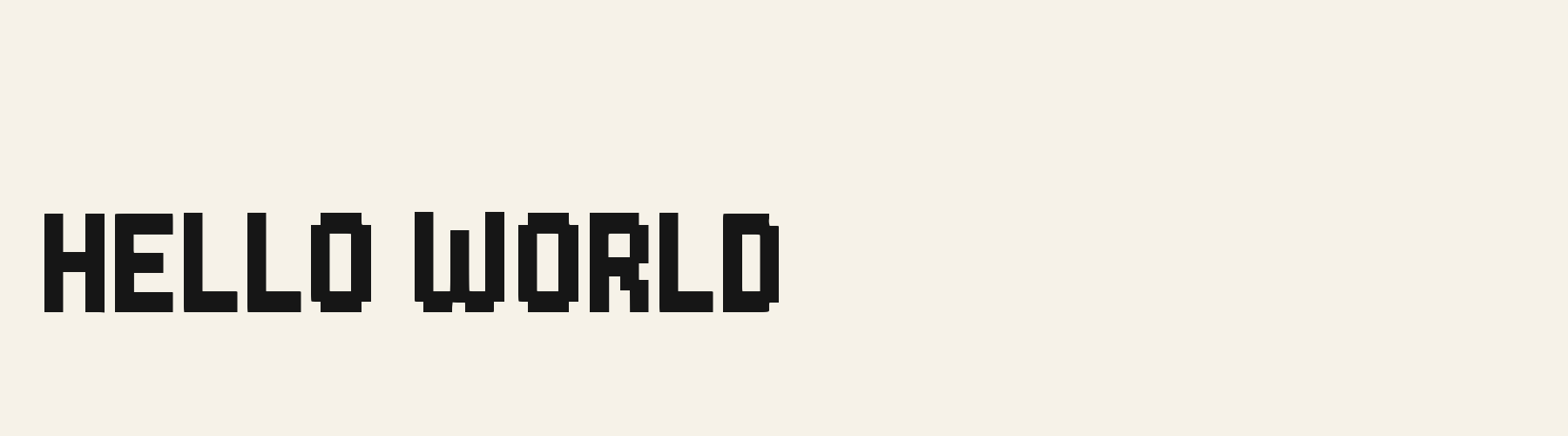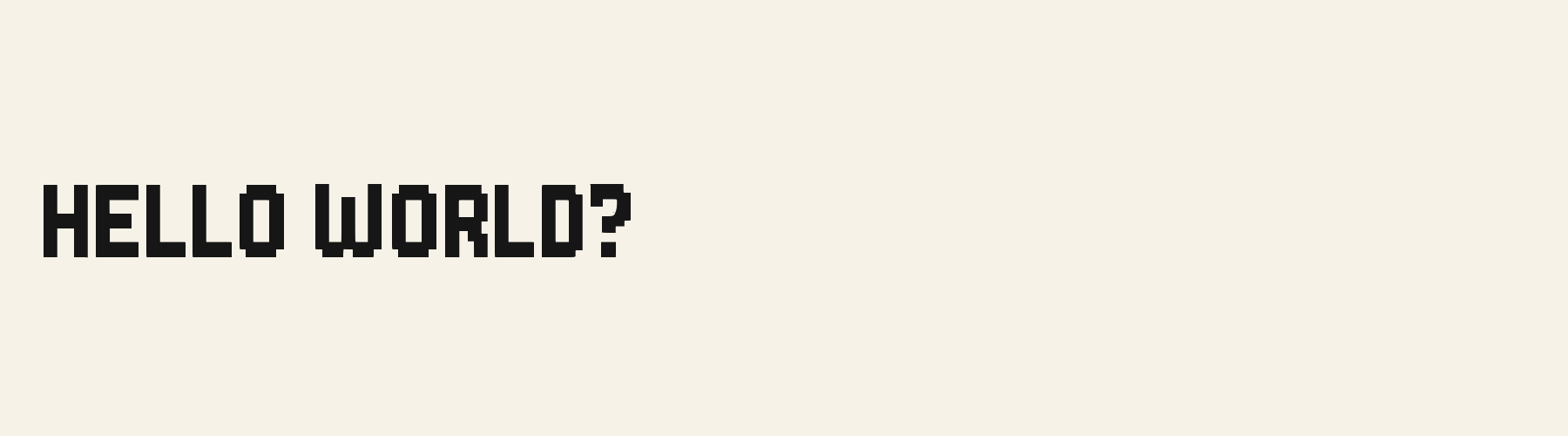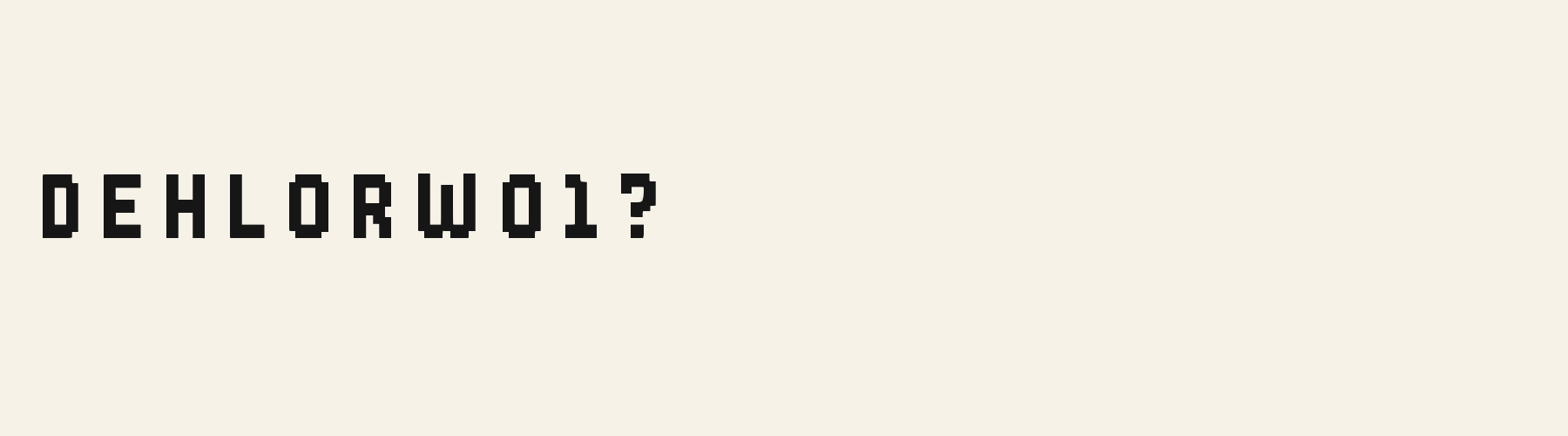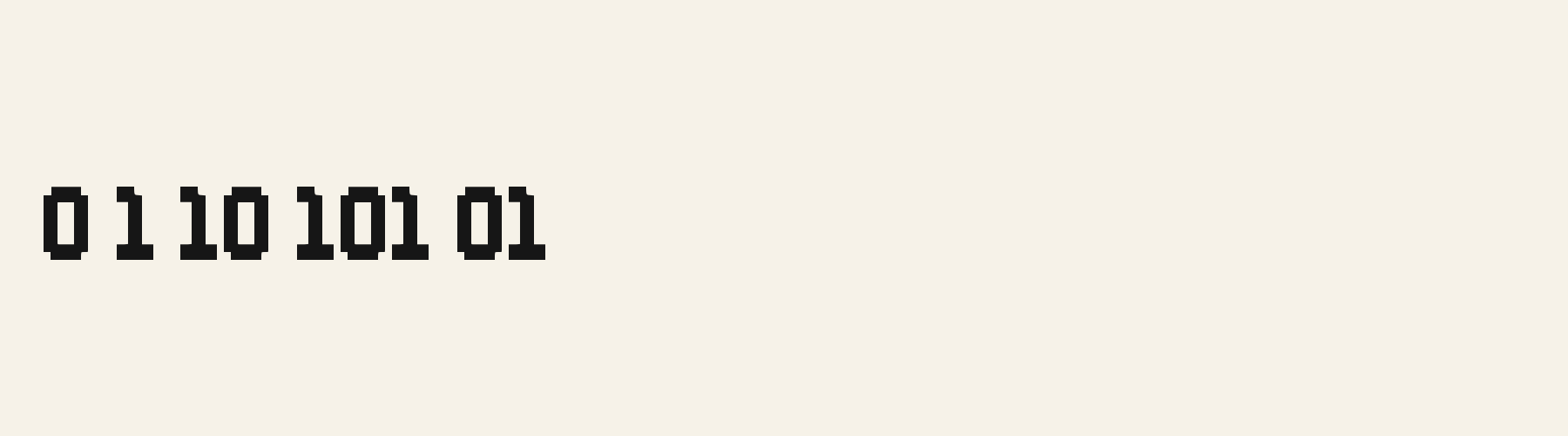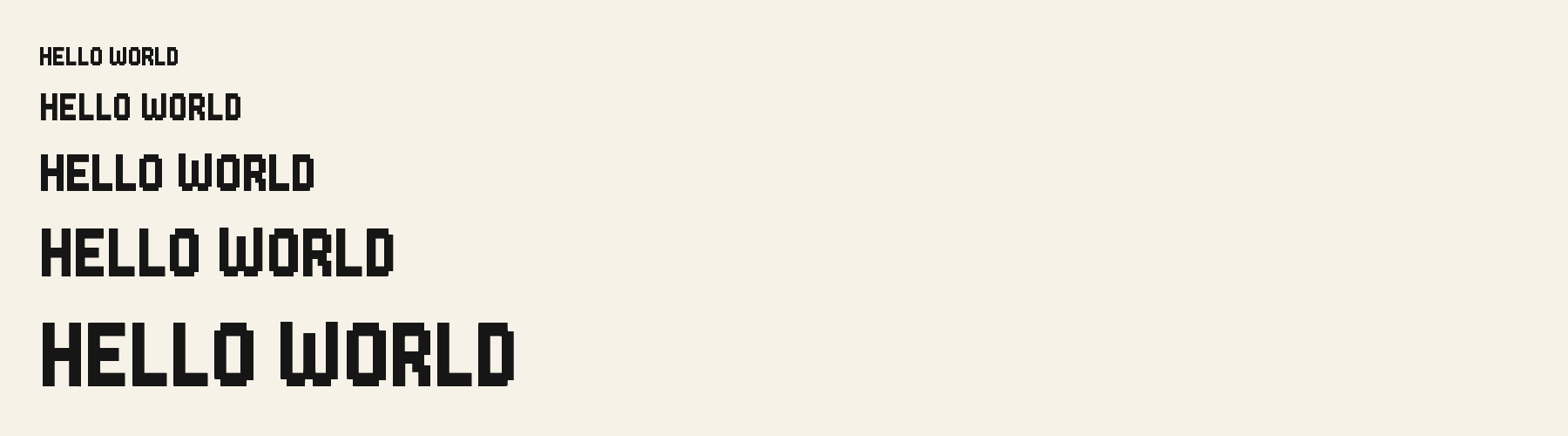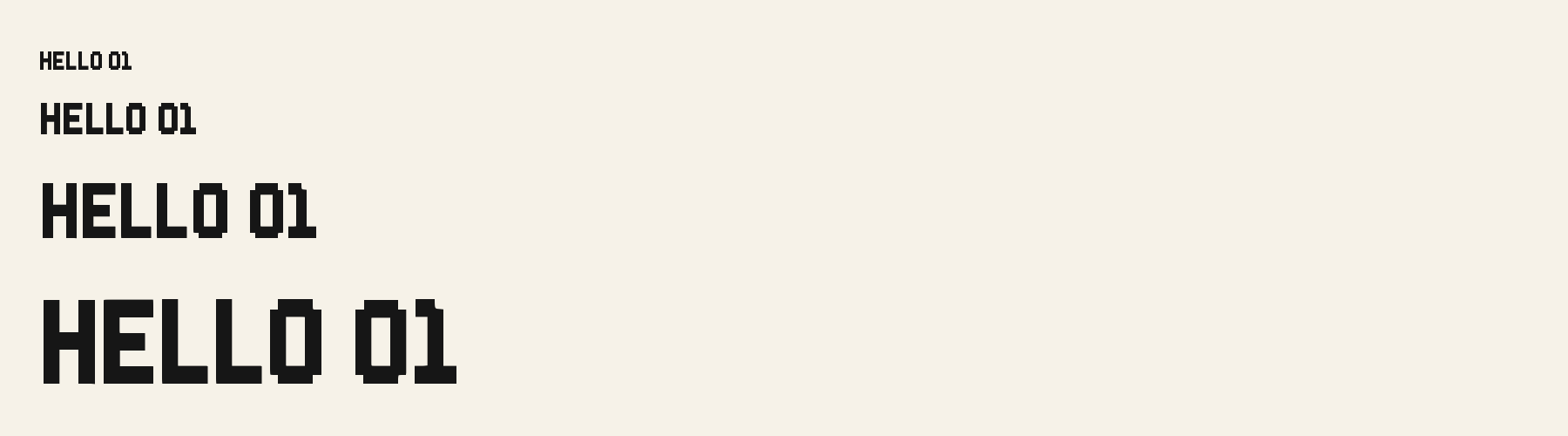
Magma Cipher Grotesk Dense Narrow Arcade Font
Magma Cipher Grotesk packs heavy, upright letters into a compact line, with solid strokes and small square steps replacing curved corners.
Dense Narrow Arcade Letterforms
Magma Cipher Grotesk packs heavy, upright letters into a compact line, with solid strokes and small square steps replacing curved corners. The O encloses a tall rectangular counter inside a bowl with stepped shoulders and feet. The W spreads wider than its neighbors, with a shorter central upright and deep openings between its stems. The R carries a compact upper bowl into a blunt, stepped leg, keeping even its directional movement angular. Nearly even stroke thickness gives the lettering a dense, sturdy rhythm, while the narrow interiors and abrupt joins bring an arcade title mood to short phrases.
Inspect repeated uprights, the wide W, and the narrow O counters in your actual wording at smaller and larger previews. For Latin text, check lowercase descenders and accented letters separately; preview any other script in the intended fallback before approving the layout.
Try this face for the main heading, with a lighter, open sans serif for descriptions and supporting labels. Its solid stems and tight rectangular counters create a strong contrast with quieter text that has more internal space.
Magma Cipher Grotesk: letterforms and layout
Compare the original spacing with a slightly wider setting. The heavy stems and narrow counters create a dense line; added space separates the repeated uprights while preserving the stepped outlines.
Magma Cipher Grotesk uses solid, heavy strokes with stepped outer corners and narrow counters. Its broad W and compact neighboring letters give the phrase a dense, forceful silhouette suited to a dominant title.
Pixel Console Square builds its strokes from visibly separated square marks. More background shows through each letter, giving the same phrase a lighter, segmented console appearance when that texture belongs in the design.
Magma Cipher Grotesk font in use
FINAL ROUND
Poster. Heavy solid strokes and stepped corners give a game night poster a strong title with an angular arcade character. NIGHT SHIFT
Book or album cover. Compact letters create a dense album title, while the square edges support stark artwork and simple geometric compositions. GAME OVER
Sticker. The narrow counters and blocky outlines give a short sticker phrase a compact silhouette with recognizable retro game styling.
The scenes are illustrations drawn on this page with Magma Cipher Grotesk itself, not client work.
About Magma Cipher Grotesk
Its lowercase sits low: the x-height is 72.3% of the cap height, where the median for pixel fonts is 77.8%, lower than 7 of the 12 other pixel fonts. Ascenders on b, d, h, k and l rise 3.4% above the capitals, and descenders on g, j, p, q and y drop 28.4% of the cap height below the baseline, deeper than 9 of the 12 other pixel fonts. Magma Cipher Grotesk runs 22.4% narrower than the median for pixel fonts: an average lowercase letter, spacing included, is 62.9% as wide as the capitals are tall (an average capital, 71.8%). The o is an upright oval, 0.79 times as wide as it is tall, and W is the widest capital, at 1.50 times the width of H. The O rises 0.4% of the cap height above H and sits on the baseline.
The letters stand upright, leaning less than 2.5° either way. Vertical stems measure 19.5% of the cap height, heavier than 5 of the 6 other pixel fonts. Ink covers 51.6% of each lowercase letter's box (its advance width by the cap height), the darkest of all 13 pixel fonts. It is close to monoline, with the sides of o and O 0.92 times as thick as their tops and bottoms.
Its 345 characters include 245 Latin letters, plus 100 figures, punctuation marks and symbols; 193 of the Latin letters are accented or special forms beyond A to Z. The word space measures 29.2% of the cap height, and the blank space either side of a lowercase letter takes up 15% of its width. Spacing is adjusted with 10,920 kerning pairs, the most of all 13 pixel fonts. The tightest of them is Td, which closes up by 20.1% of the cap height. The figures have different widths, so columns of numbers set in Magma Cipher Grotesk will not line up exactly.